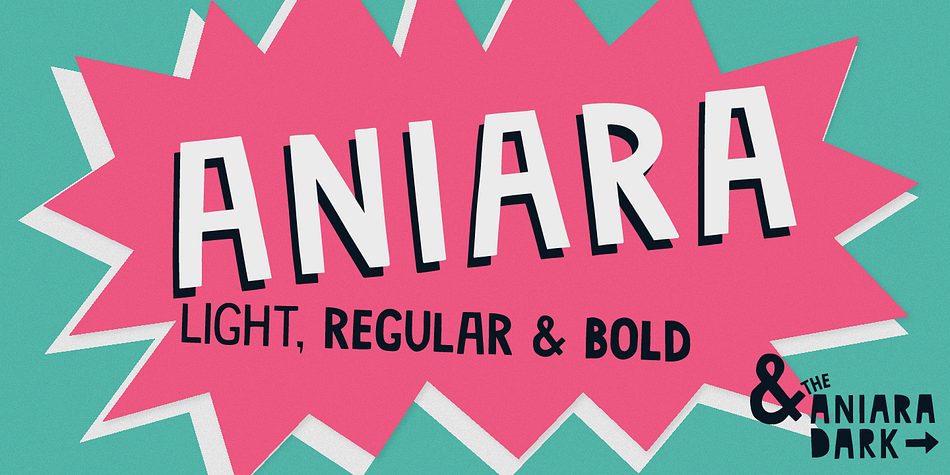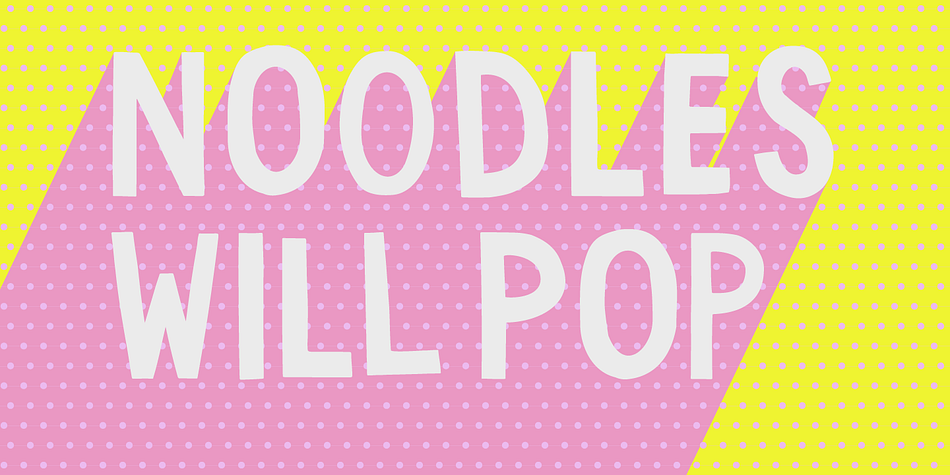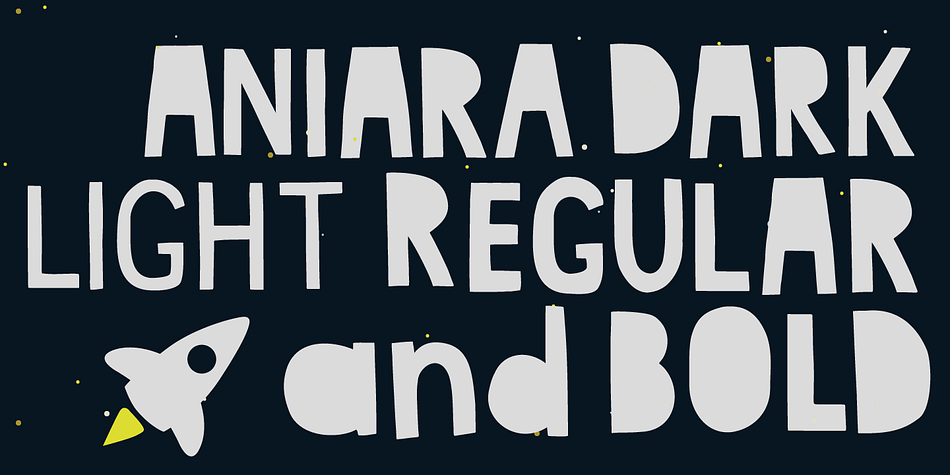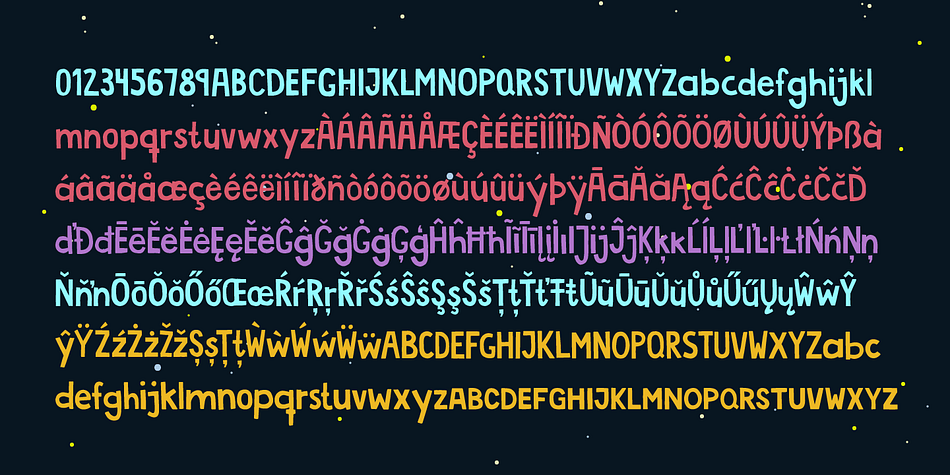
Aniara is a dingbat and hand display font family. This typeface has seven styles and was published by Gustav & Brun.
Aniara is a playful, happy and intergalactic font. Arriving in three different weights: Light, Regular and Bold + the antagonist: the dark version without the space/counter.
Aniara comes with laser shrinked upper case letters. It attacks with a alternative upper and lower case glyph. PoFF!!